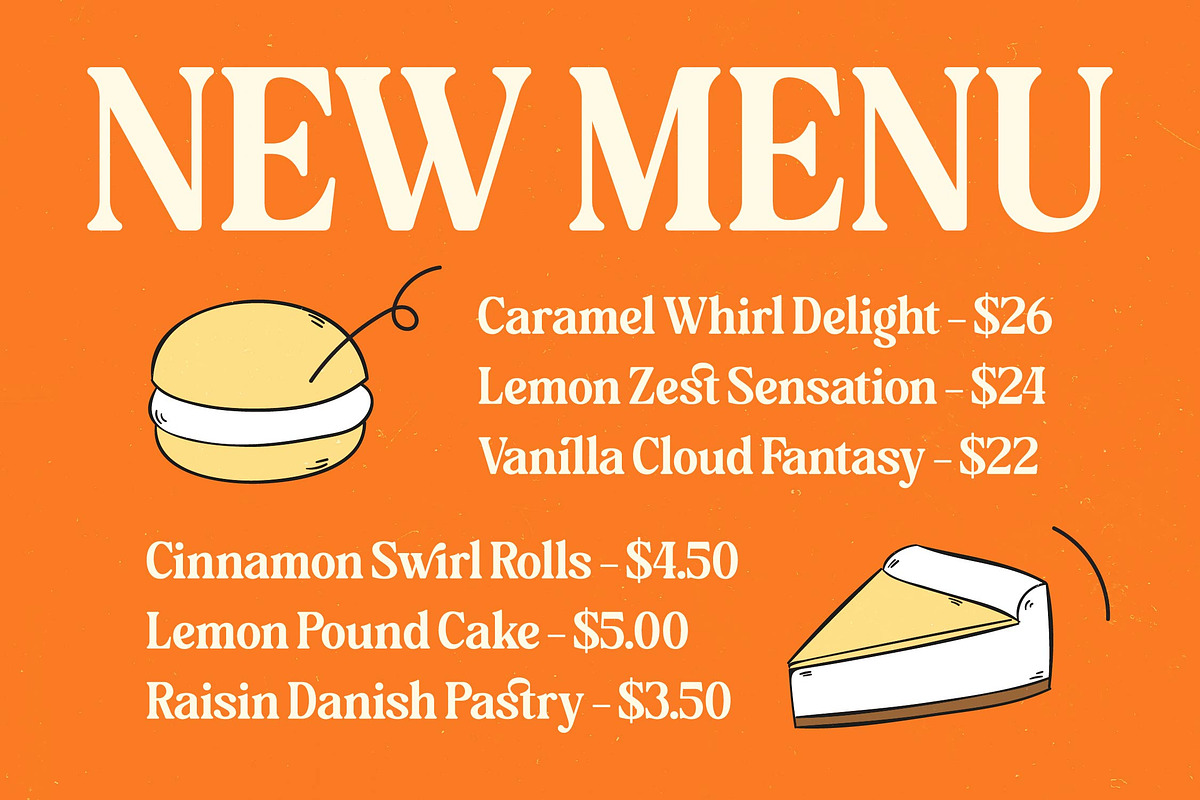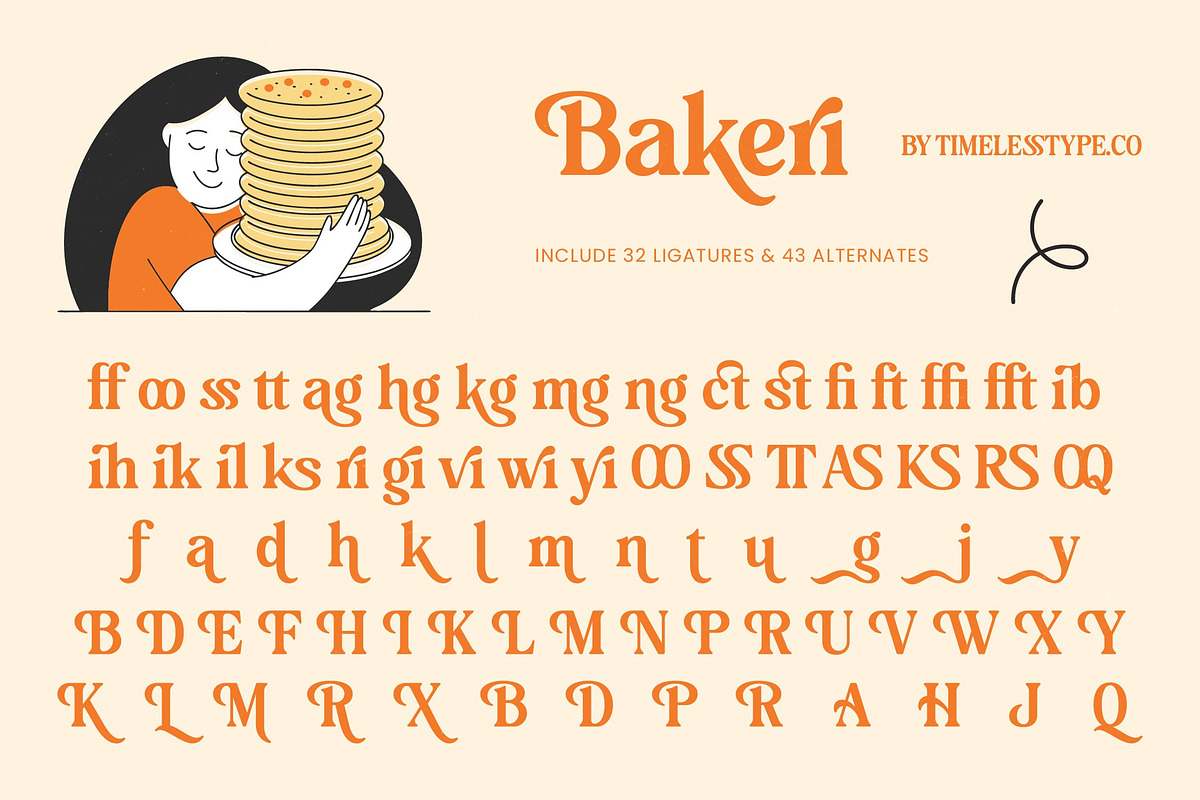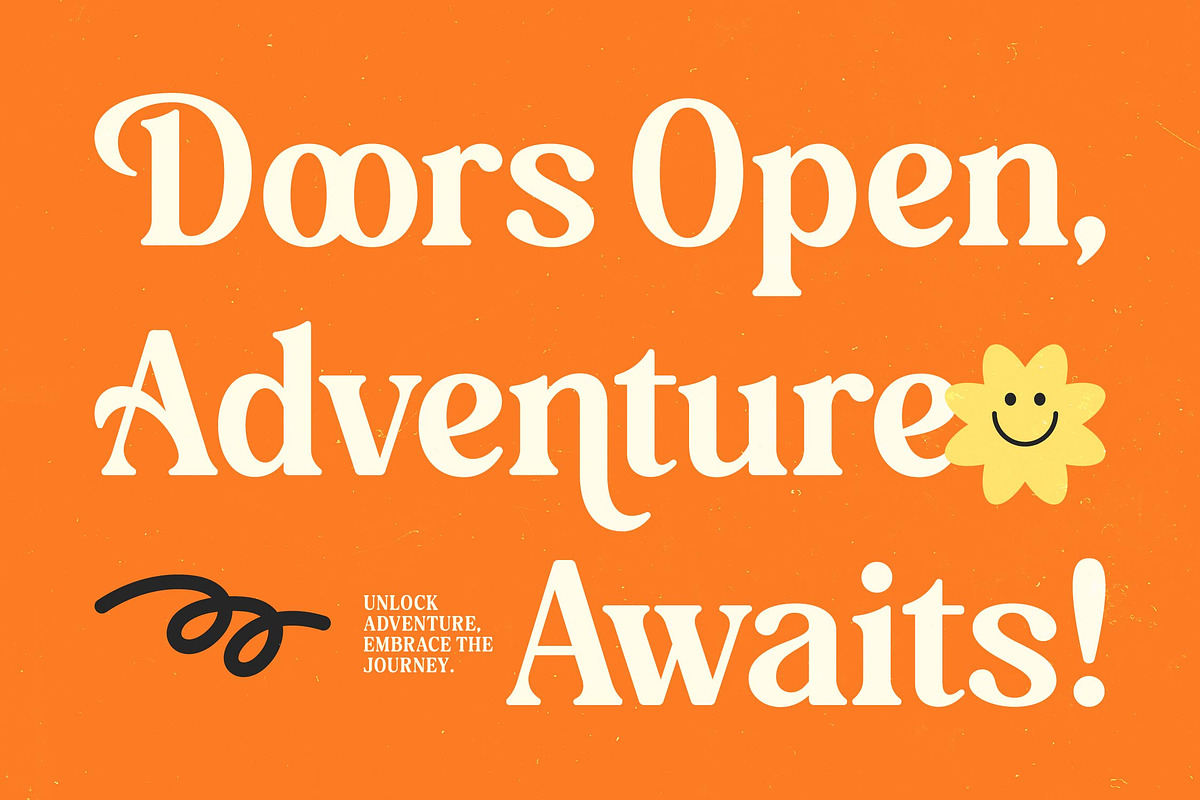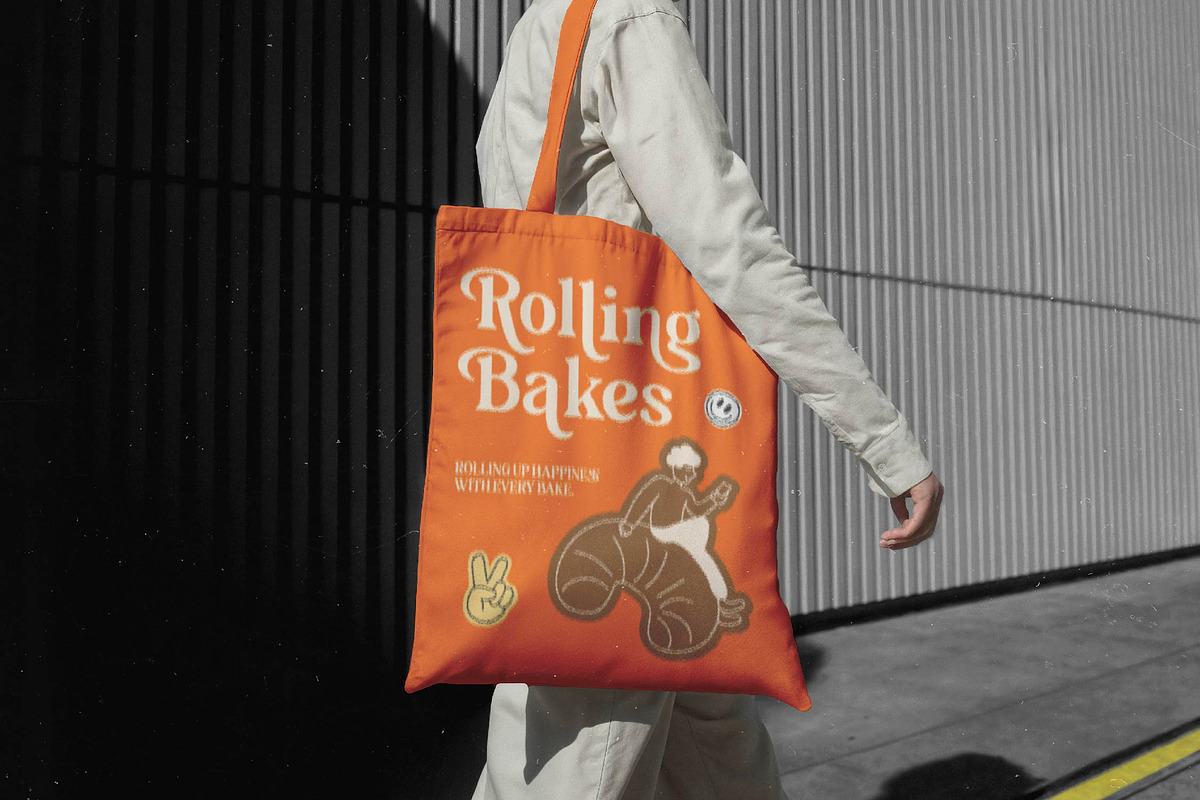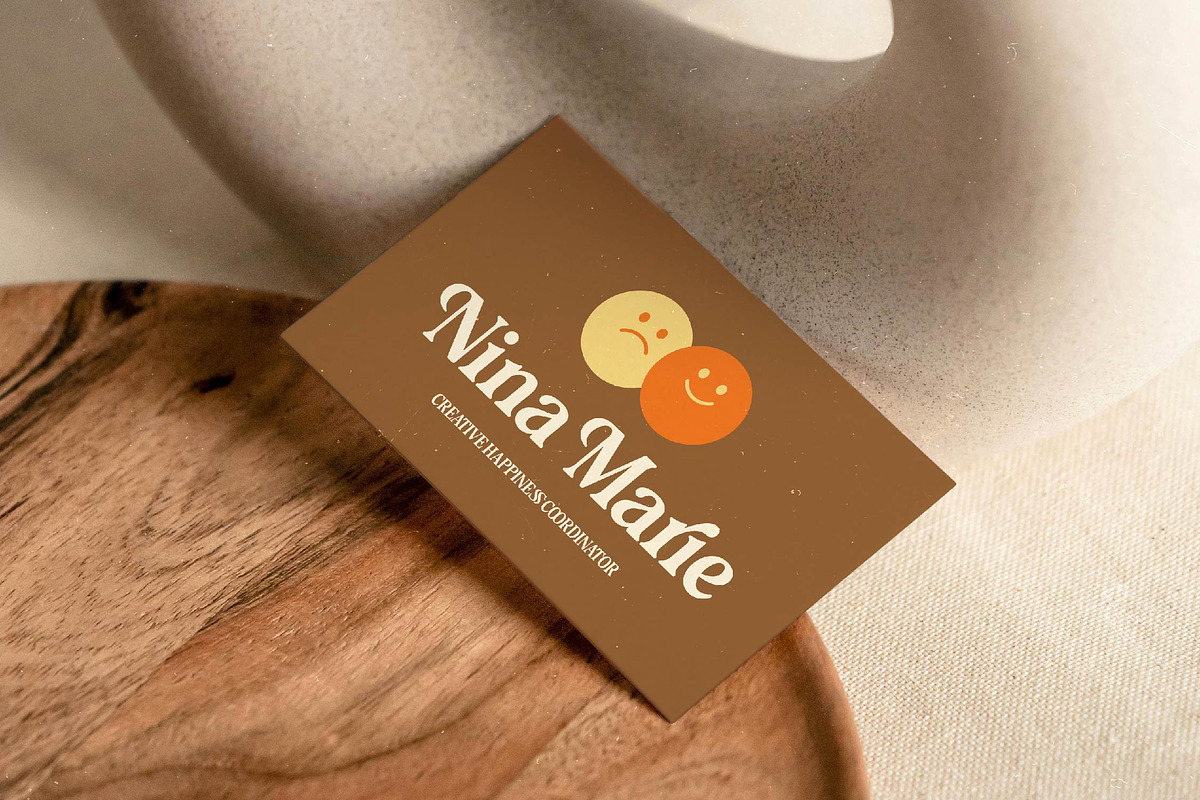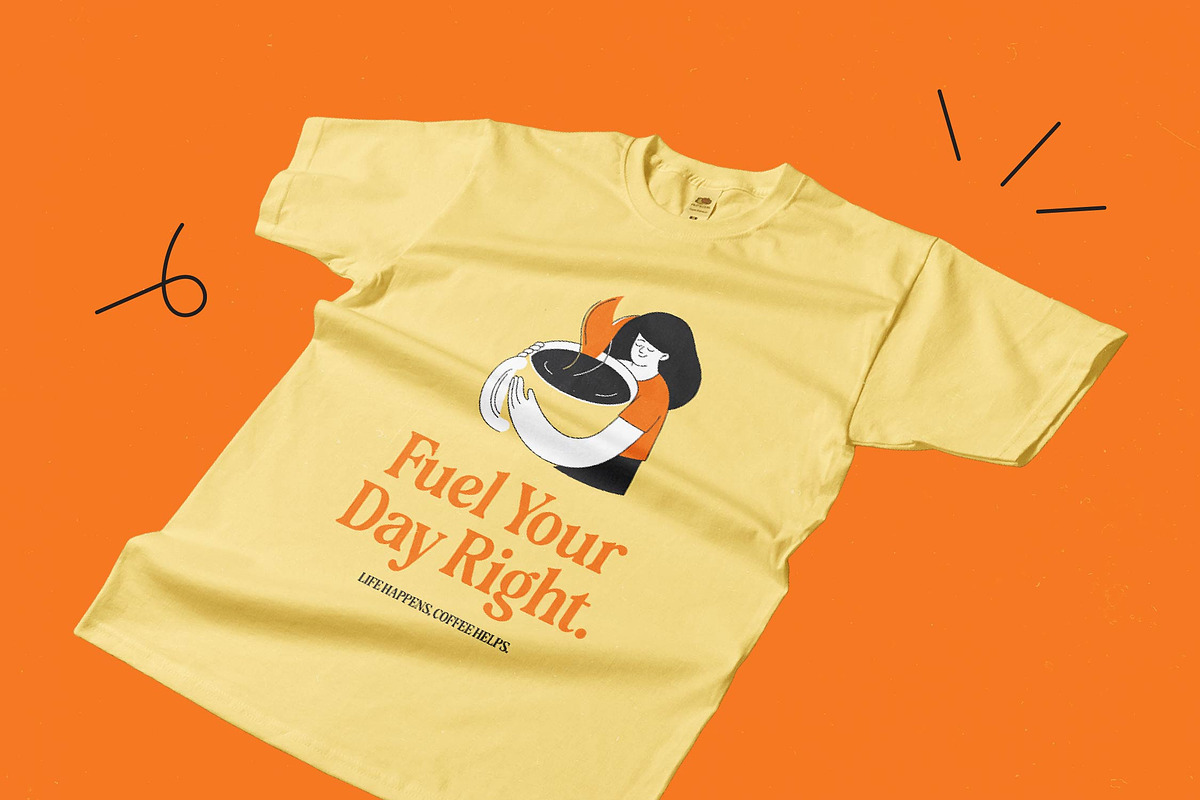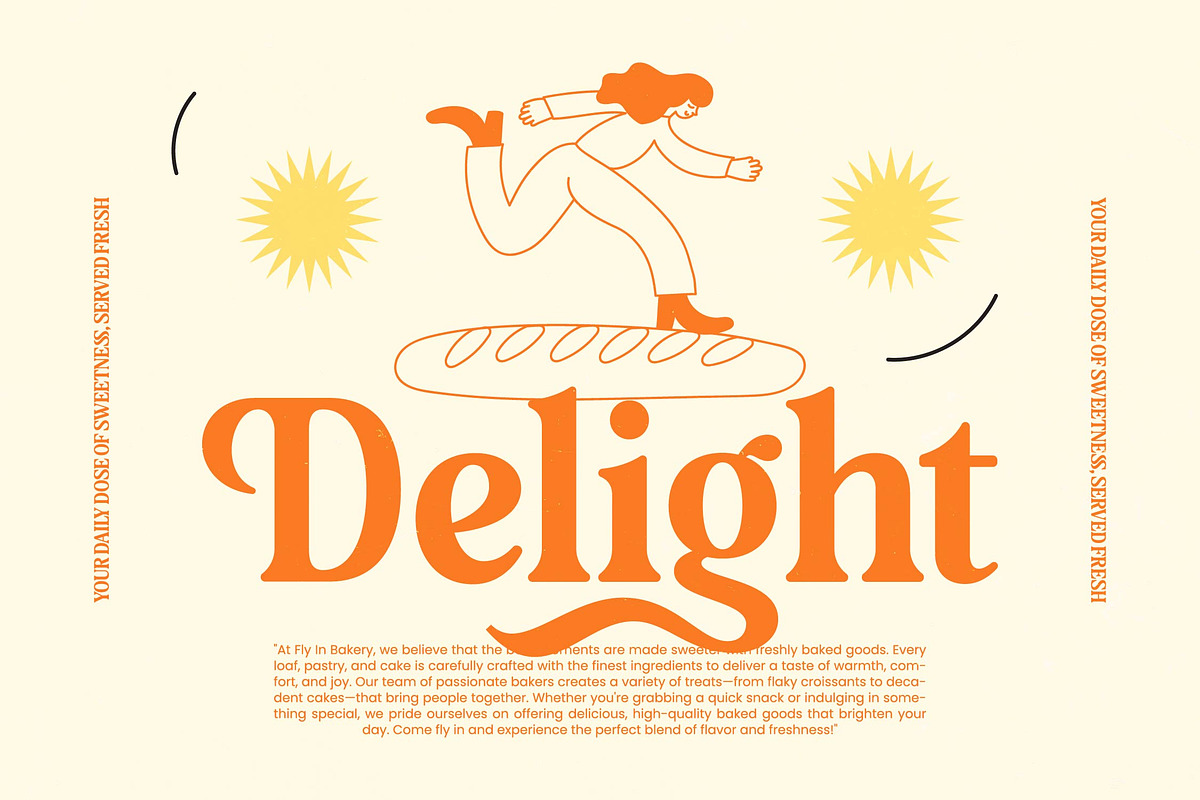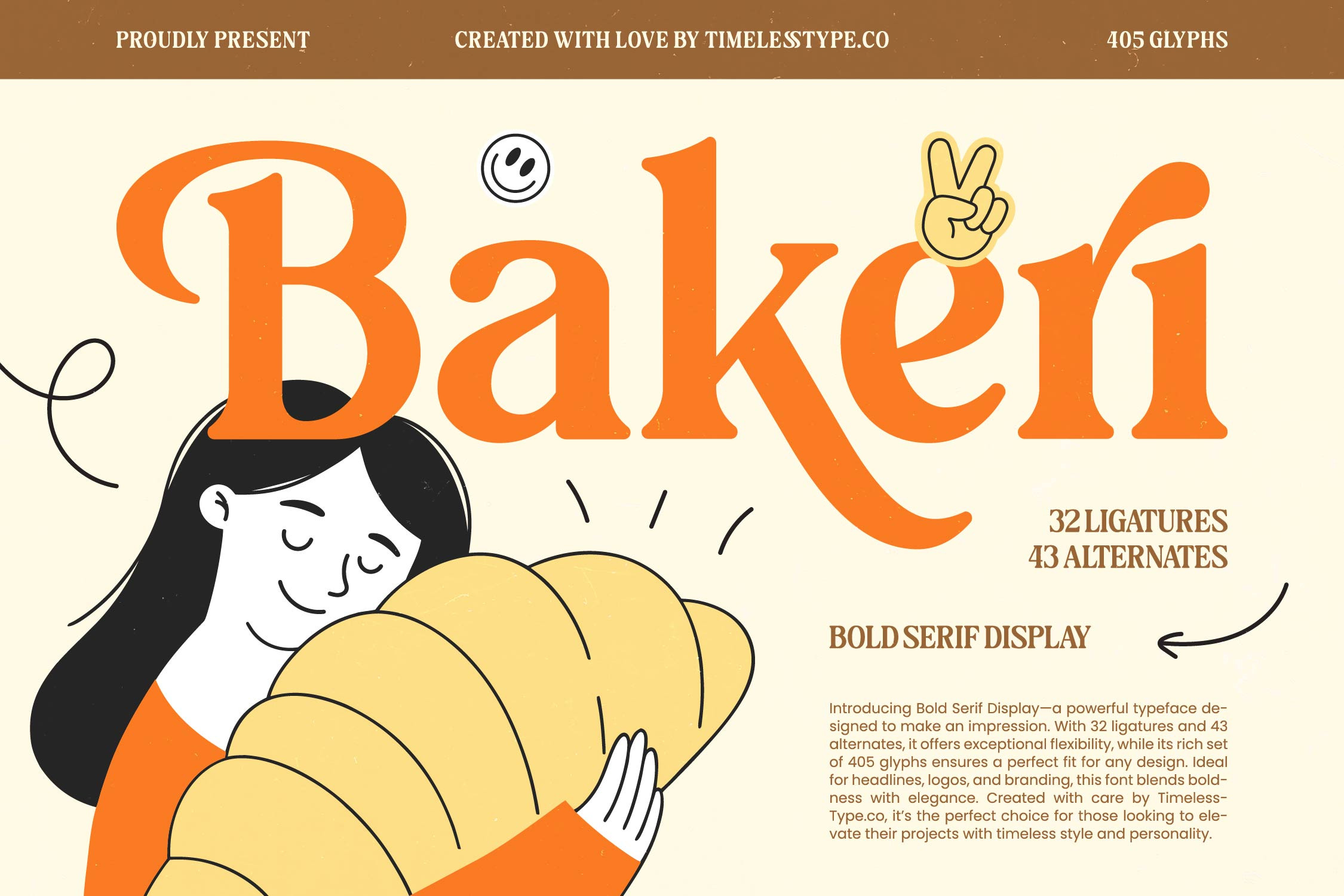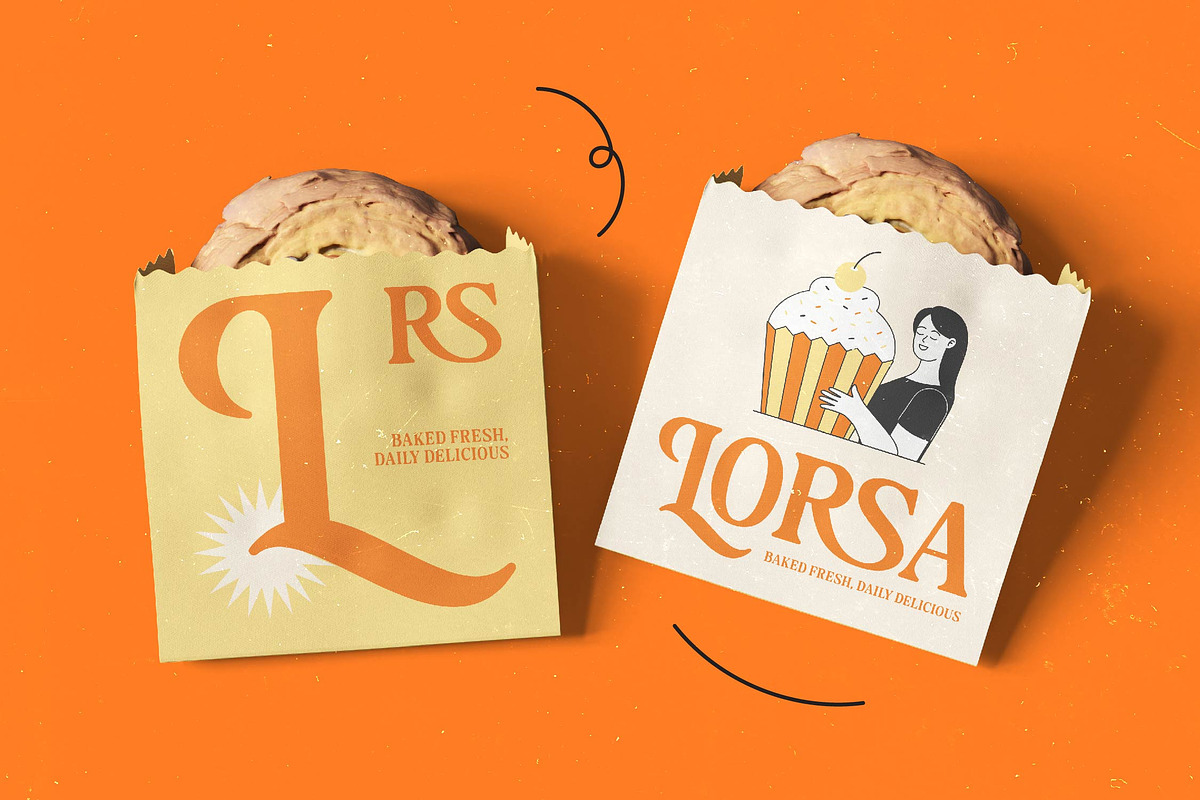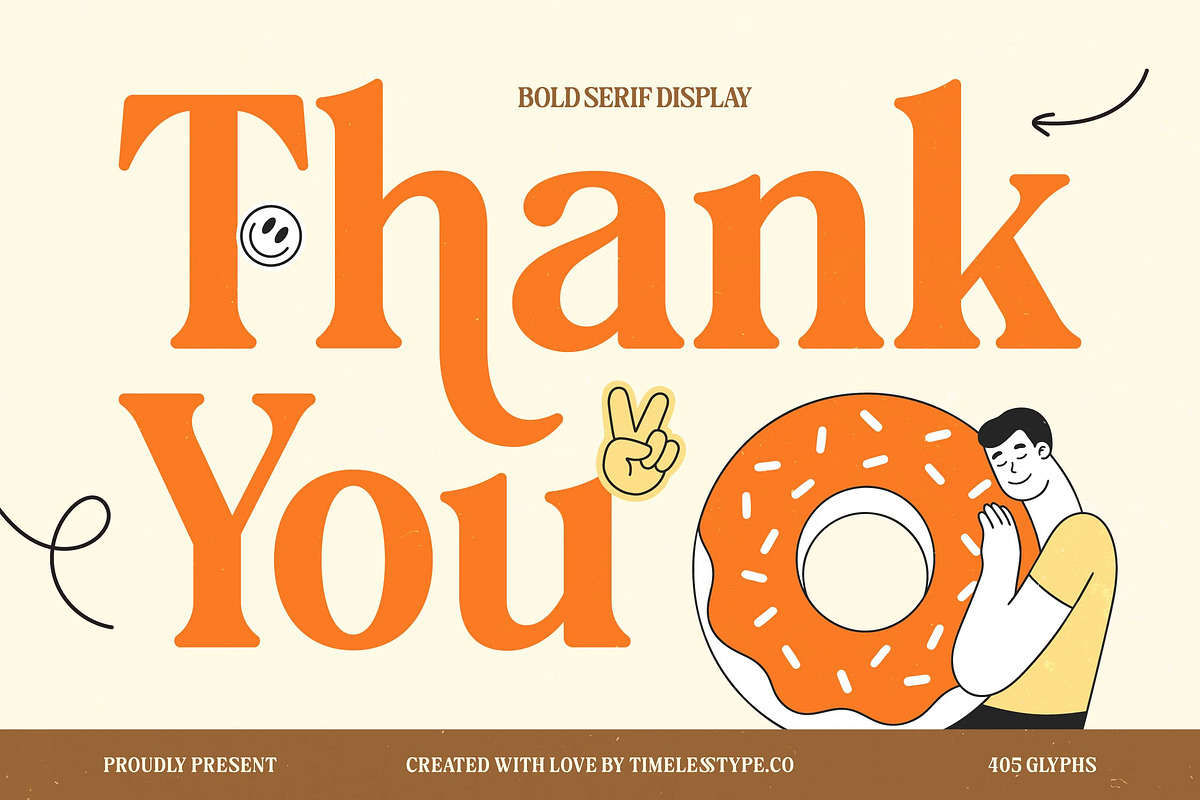
Bakeri Modern Retro Serif Font
Indulge in the sweet sophistication of Bakeri, a typeface that captures the warmth of a freshly baked morning and the elegance of high-end design.
Inspired by the organic curves of artisanal pastries and the nostalgic charm of mid-century bistro signage, this font evokes a sense of comfort and timeless quality. It draws from a world where craftsmanship meets modern flair, creating a visual language that feels both heritage-inspired and fresh.
As a modern serif display, this typeface commands attention with its generous curves and unique personality. It offers a luxury typography experience through its high-contrast serif details, making it a premier editorial font for those who need a significant branding impact in their creative projects.
Tapping into the current modern serif trend, this typeface is perfect for designers looking for editorial display fonts that break away from the mundane. Its character-driven typography aligns with the growing demand for nostalgic yet polished visual identities that stand out in a digital-first world.
This versatile font is an exceptional choice for logo design and comprehensive branding systems that require a touch of whimsy and class. Whether it is used for high-end editorial layouts, boutique packaging, sophisticated wedding invitations, or bold fashion lookbooks, it delivers a memorable aesthetic.
The package is fully loaded with a rich set of 405 glyphs, including a wide array of ligatures and alternates to give your text a custom, hand-lettered feel. It also features beautiful swashes and full multilingual support with international characters to ensure your message reaches a global audience with style.
Numerals
Punctuations (OpenType Standard)
Accents (Multilingual Characters)
Ligatures and Alternative Style Stylistic Set